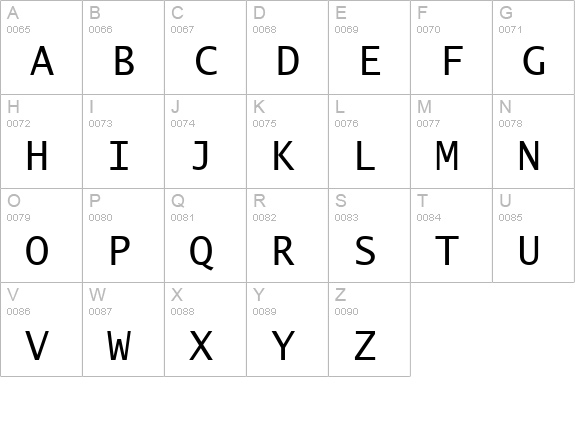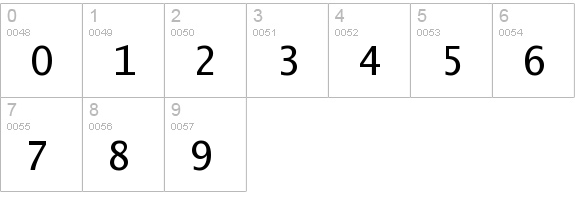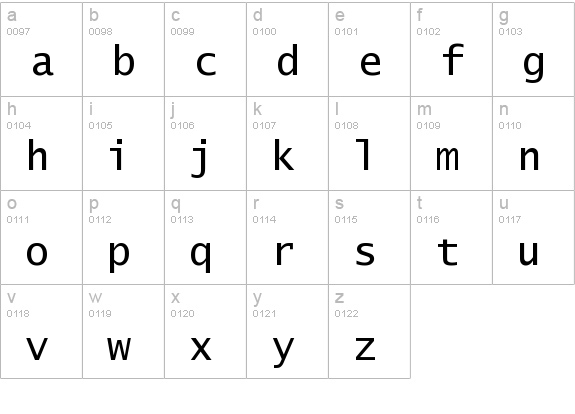
Lucida Sans Typewriter Regular is the standard, neutral variant in the Lucida typeface family \xE2\x80\x94 well suited to general body text, paragraphs, and standard typographic work.
Lucida Sans Typewriter Regular font is a classic and versatile typeface that combines the simplicity of a typewriter style with a modern twist. Its clean lines and distinct characters make it perfect for a wide range of design projects, from professional documents to creative artworks. The clear and easy-to-read design of Lucida Sans Typewriter Regular font ensures that your text will always be legible and engaging. Moreover, this font is available for free download at FontsMarket.com, making it easily accessible for anyone looking to add a touch of sophistication to their designs. Whether you're a graphic designer, a writer, or a student working on a project, Lucida Sans Typewriter Regular font is sure to elevate your work with its timeless appeal and professional appearance. Download it today and see for yourself the impact this font can have on your creations.